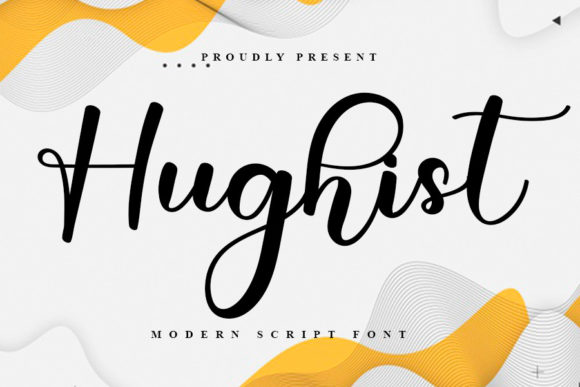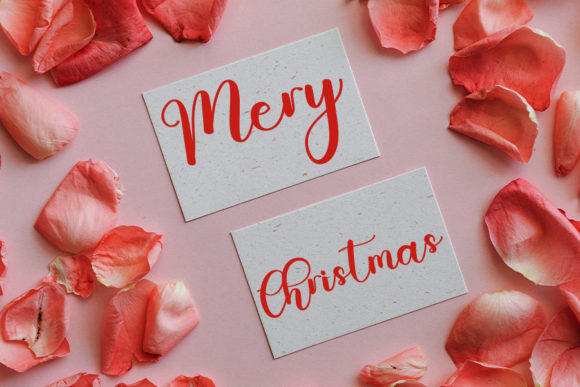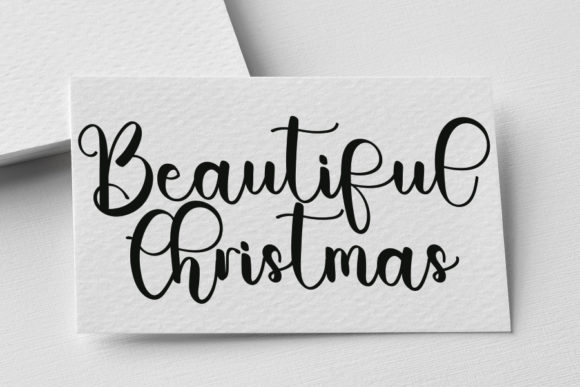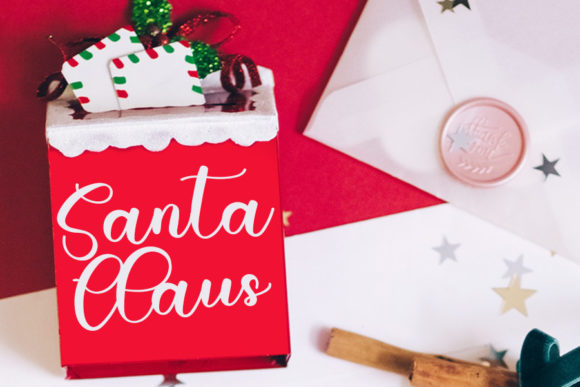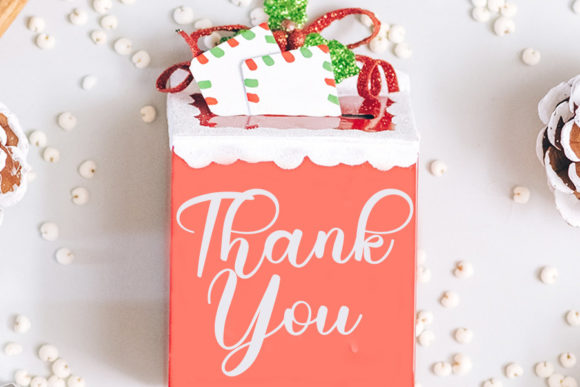
Hughist Font
About Hughist Font
Hughist is a lovely and delicate script font that exudes elegance and class. This font was particularly crafted for those who need a beautiful and refreshing look to their designs.